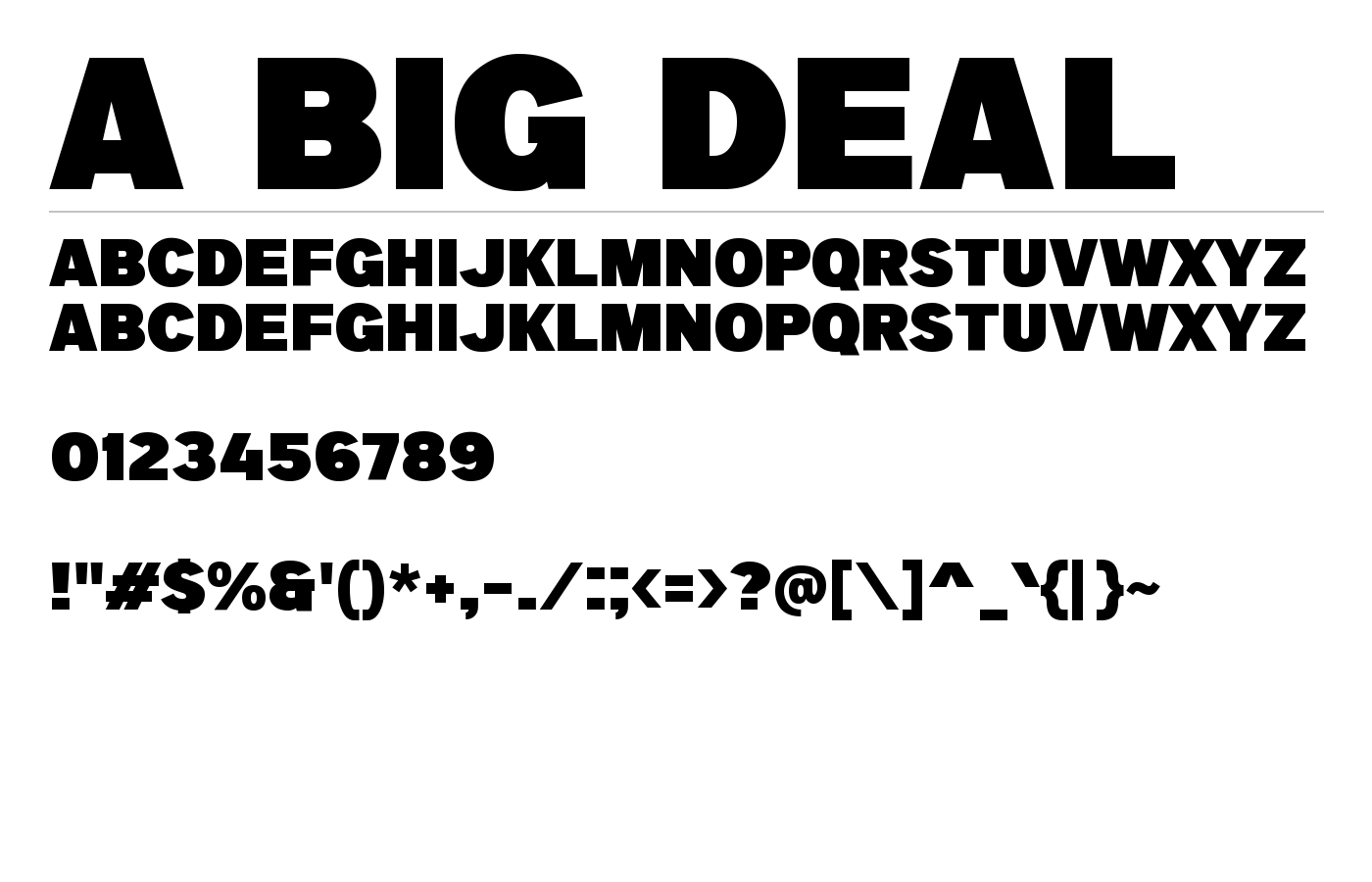
a Big Deal Font is a bold, heavy sans serif typeface with strong, sturdy letterforms that command attention. Its wide, solid shapes and high impact strokes make it perfect for headlines, logos, and branding that need a powerful and confident presence. This font works best in designs where a bold statement is required, such as posters, packaging, and advertising, due to its clear readability and striking visual appeal.
a Big Deal Font
About a Big Deal Font